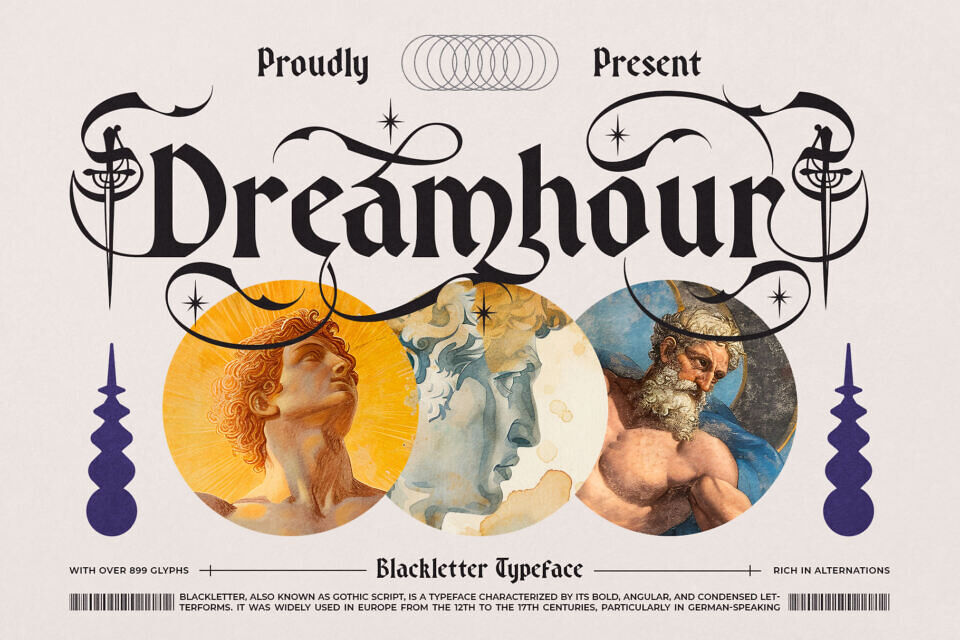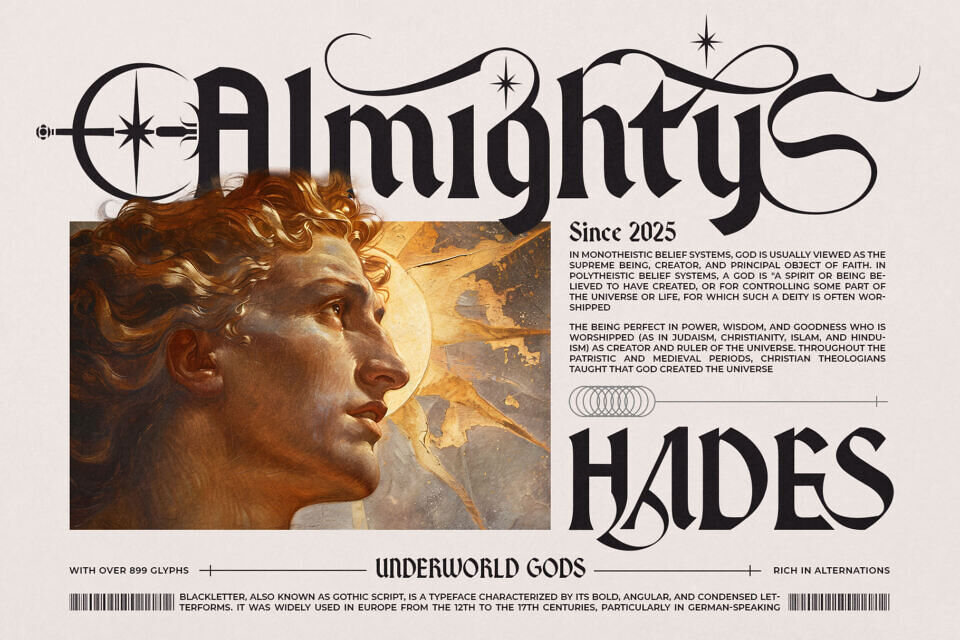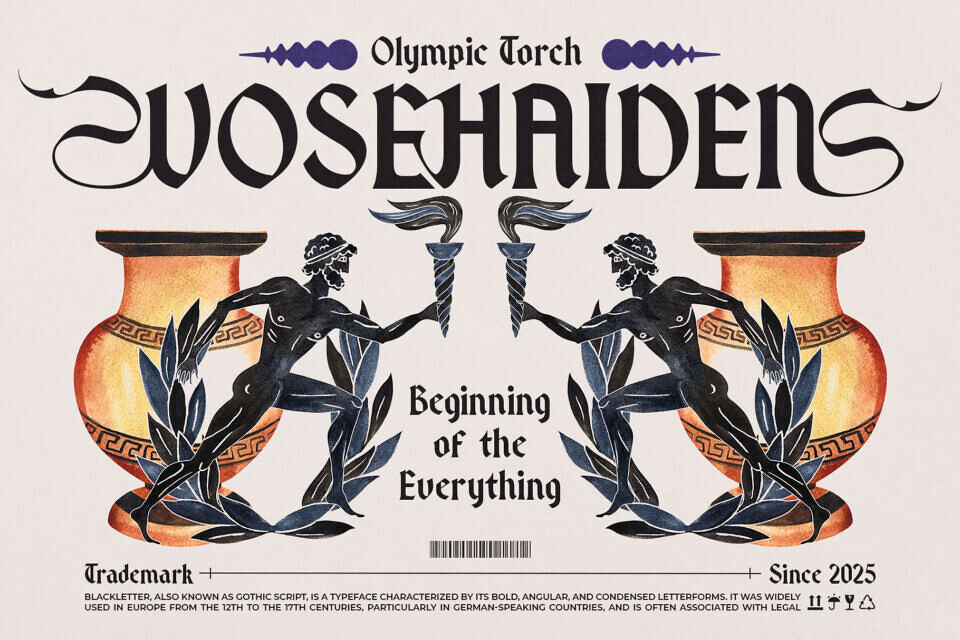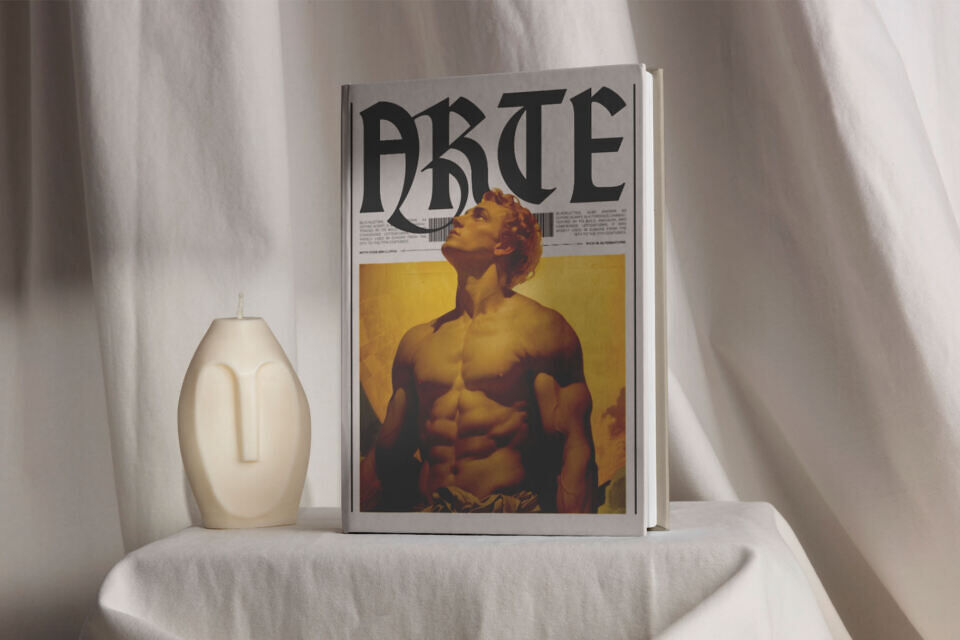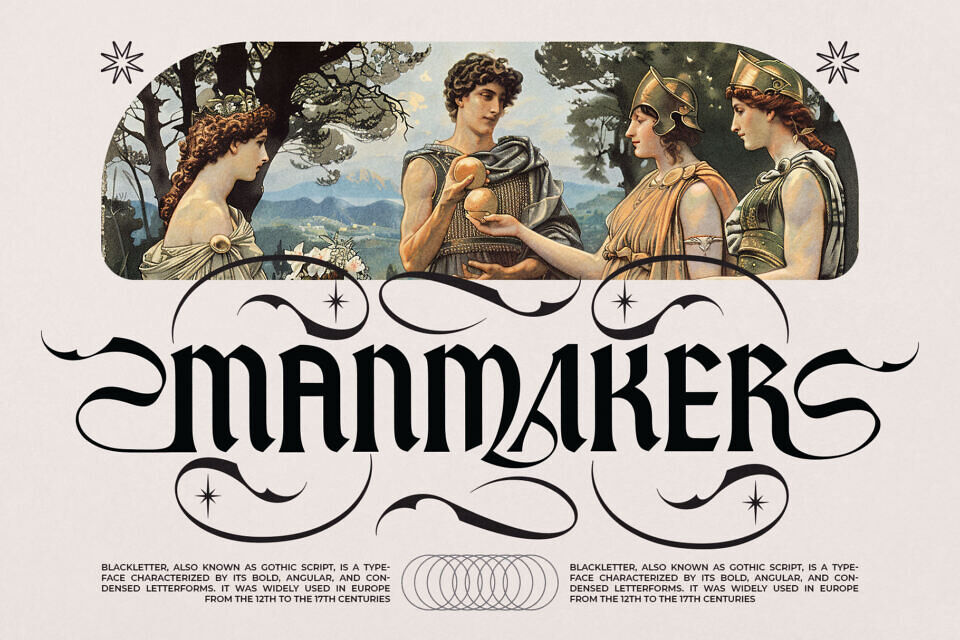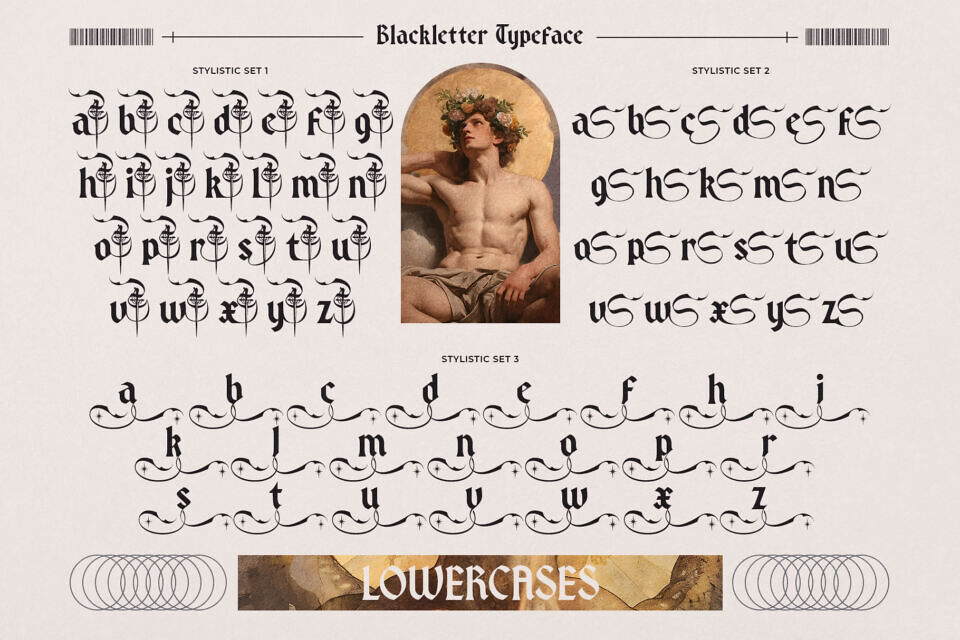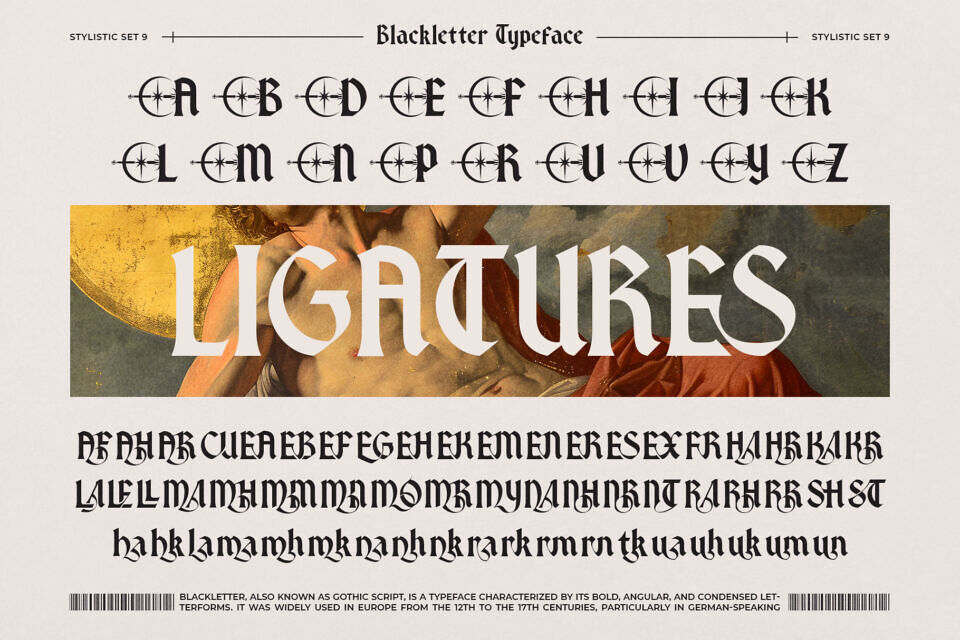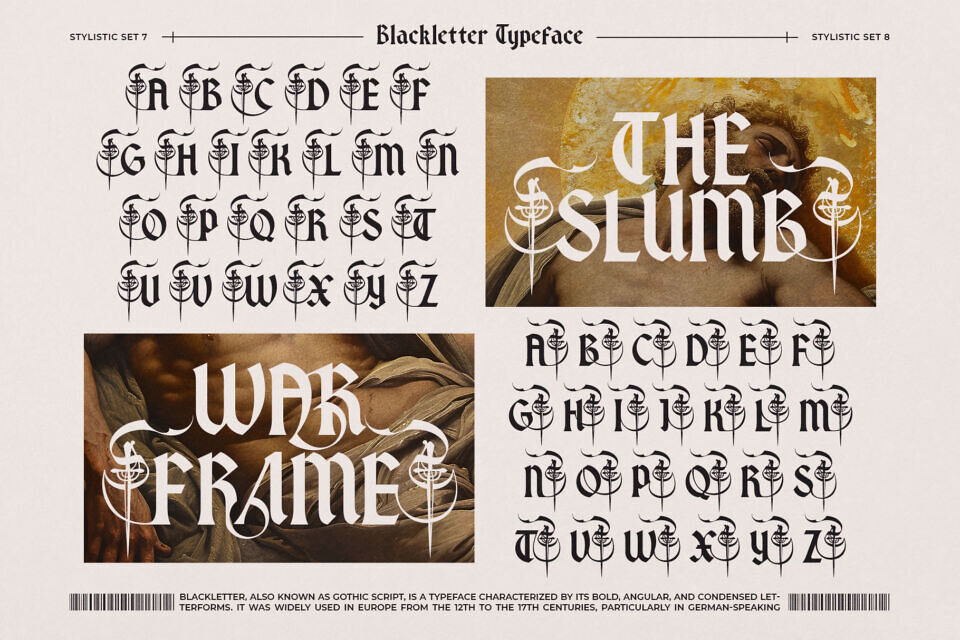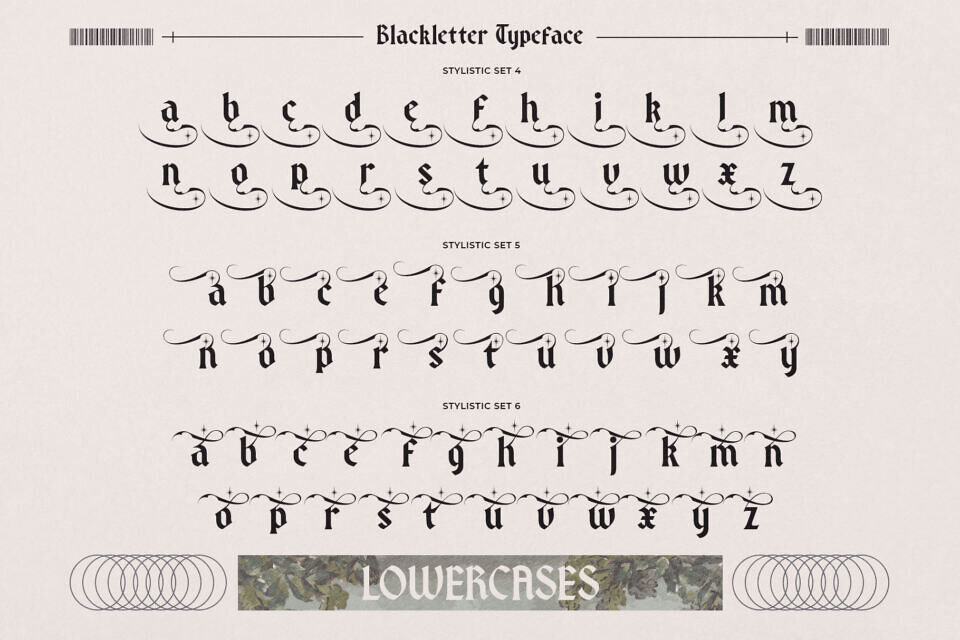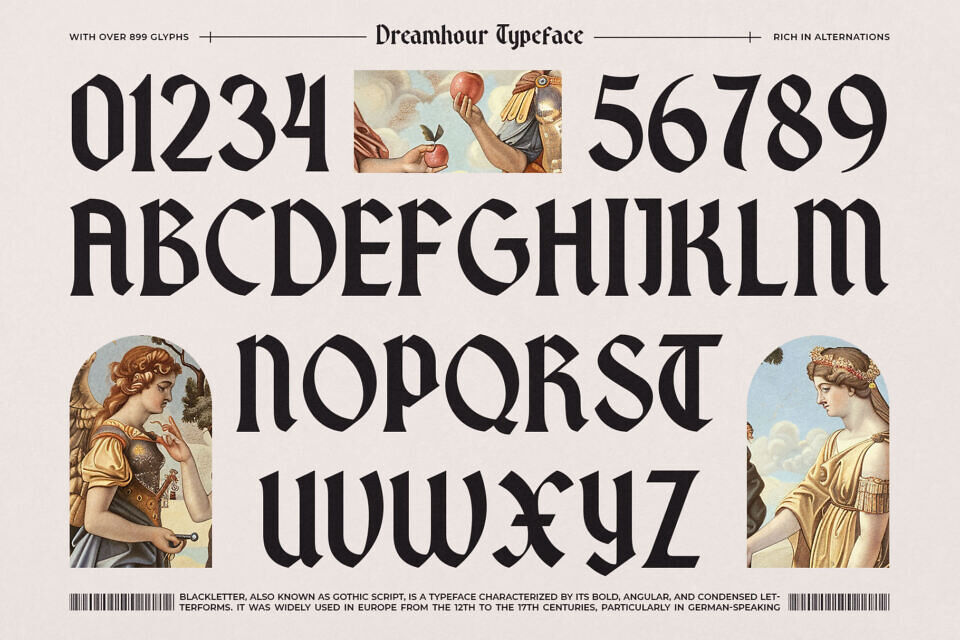
A Gothic-Serif Fusion Typeface for Modern Mythmakers! Dreamhour is a richly ornamental display typeface that weaves together the expressive, rigid elegance of blackletter tradition with the clarity and balance of contemporary serif design. Created for those who dare to make a bold statement, Dreamhour is a font family that exudes confidence, mystery, and high-craft artistry.
Dreamhour draws its strength from duality: it is both ancient and modern, both disciplined and flamboyant. The letterforms reference medieval calligraphy—such as Fraktur and Textura—reimagined through the lens of modern typographic design. Subtle curves meet sharp terminals, swashes sweep across characters, and precise geometries evoke a timeless luxury.
Perfect for editorial design, high-fashion branding, fantasy universes, ceremonial products, and avant-garde visuals, Dreamdour tells a story with every letter.